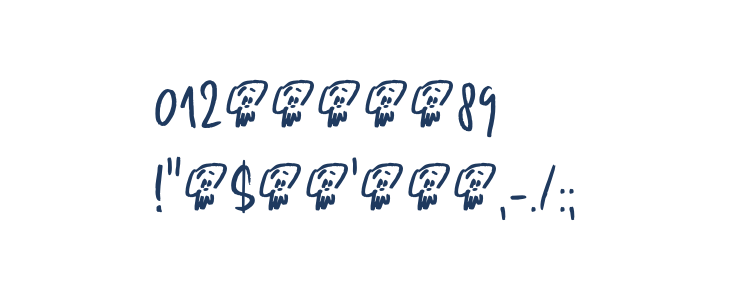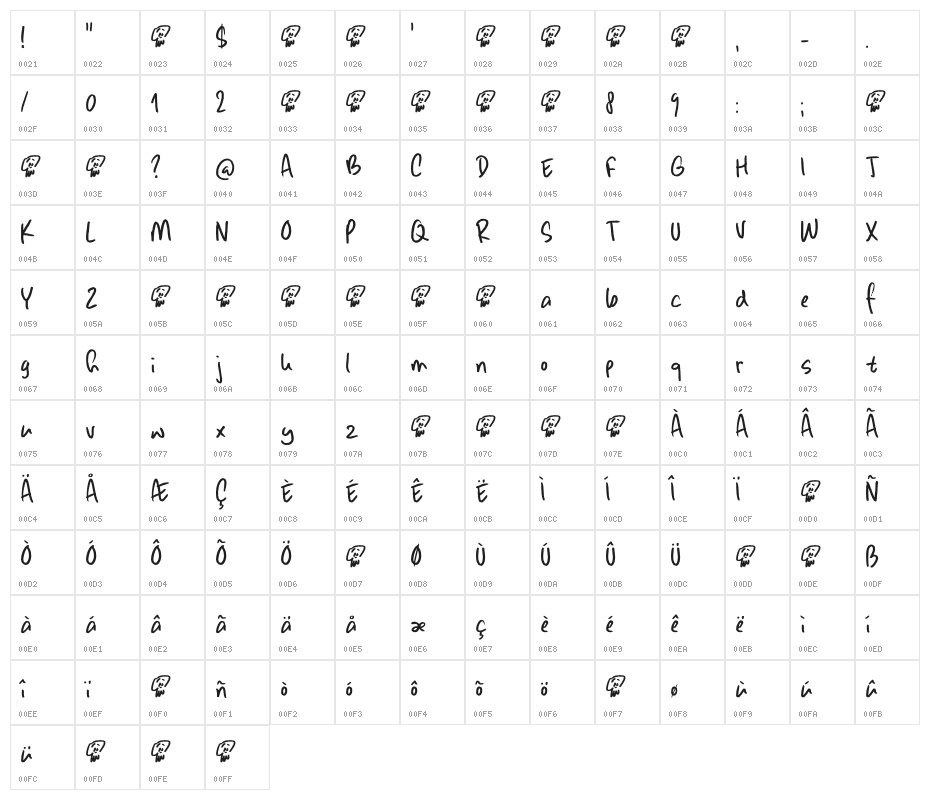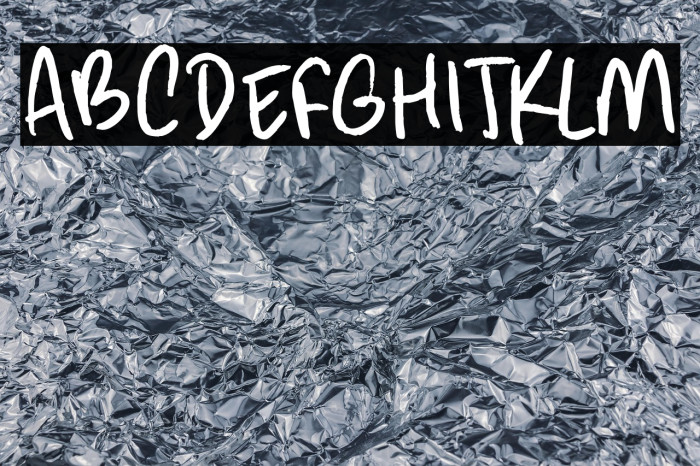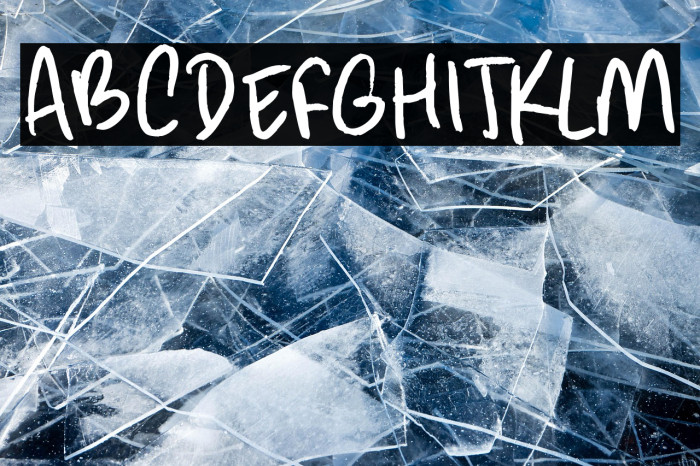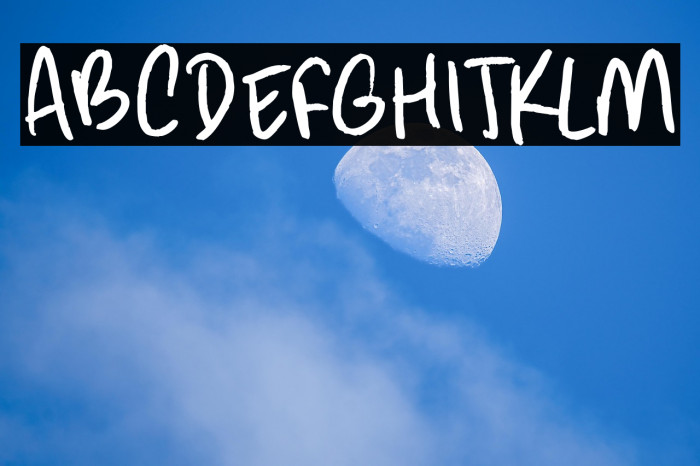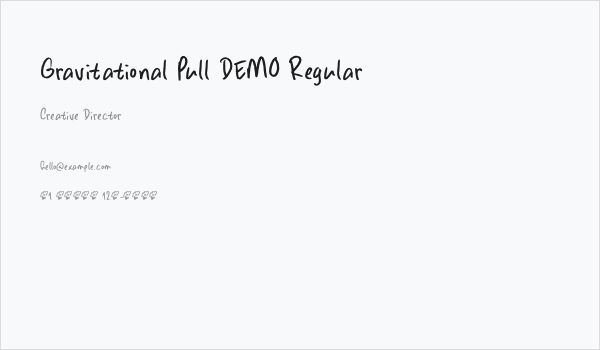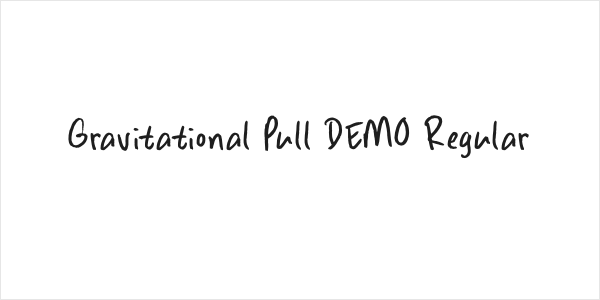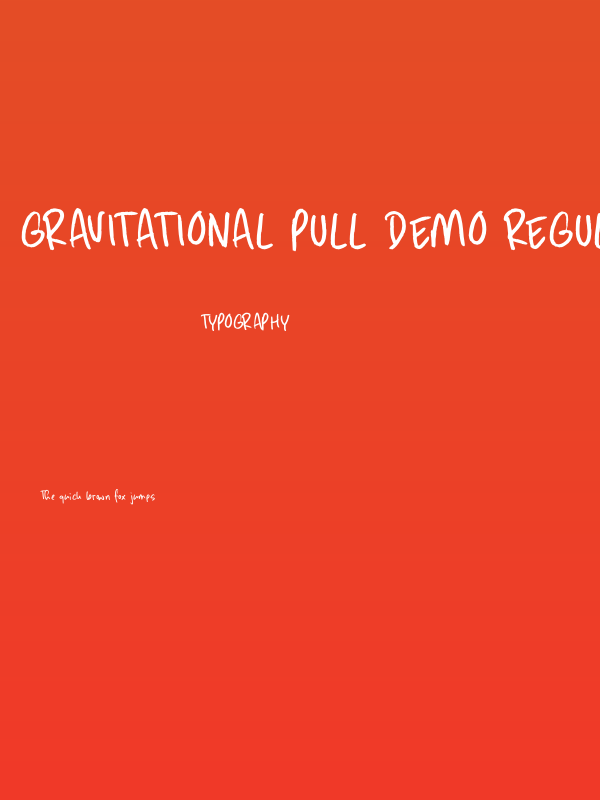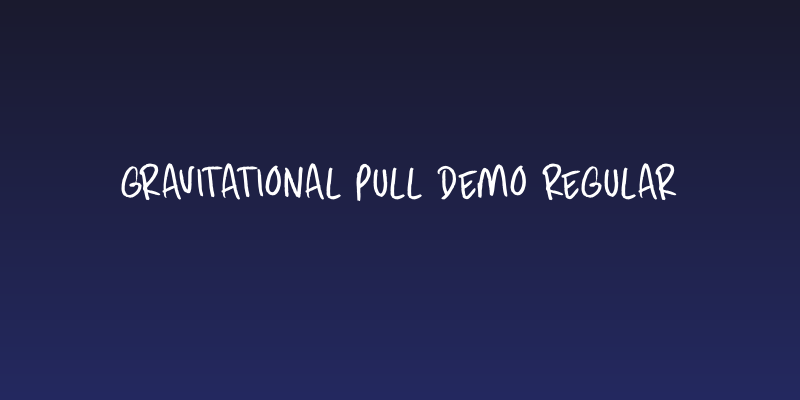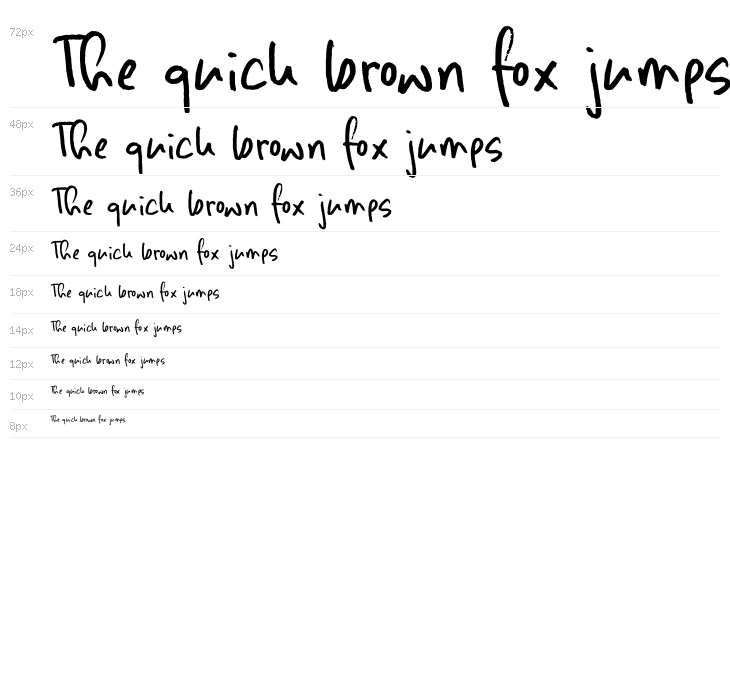
Gravitational Pull DEMO Regular Font
Gravitational Pull DEMO Regular Description
This font exudes a playful and casual handwritten style, characterized by its bold and slightly irregular strokes. The letters have a dynamic flow, with some characters featuring unique loops and curves that add to its informal charm. The uppercase and lowercase letters maintain a consistent style, while the numbers and special characters introduce a quirky element with their distinctive design. This font is perfect for projects that require a personal touch or a creative flair, making it suitable for artistic endeavors, informal branding, or playful designs.
| Proposed Projects | Ideal for greeting cards, playful branding, artistic posters, and informal invitations. |